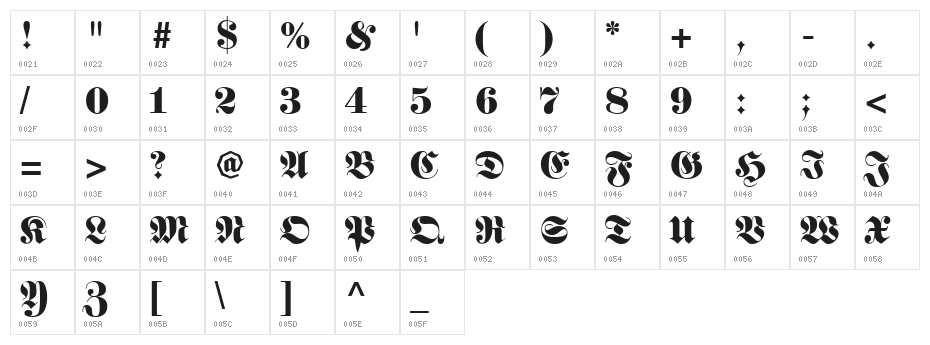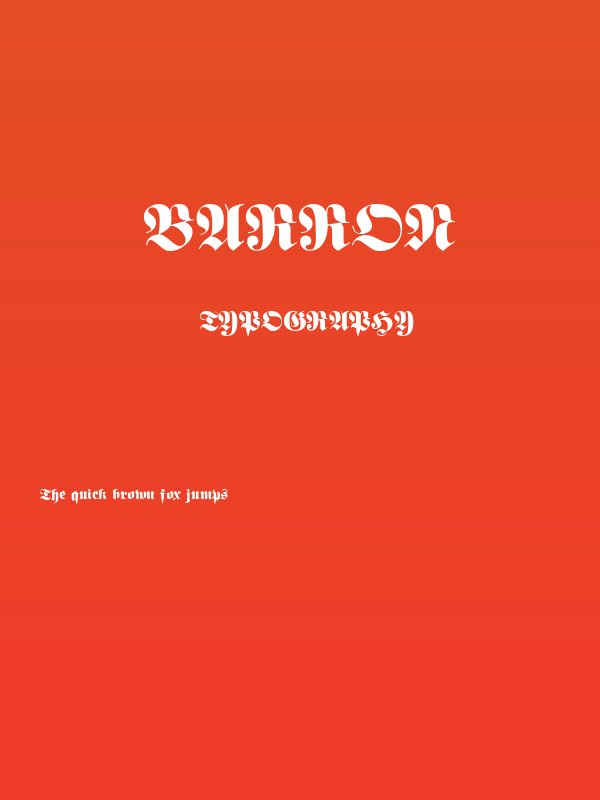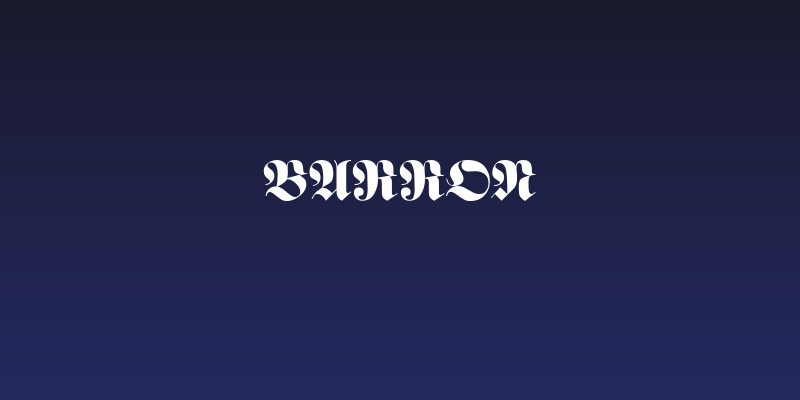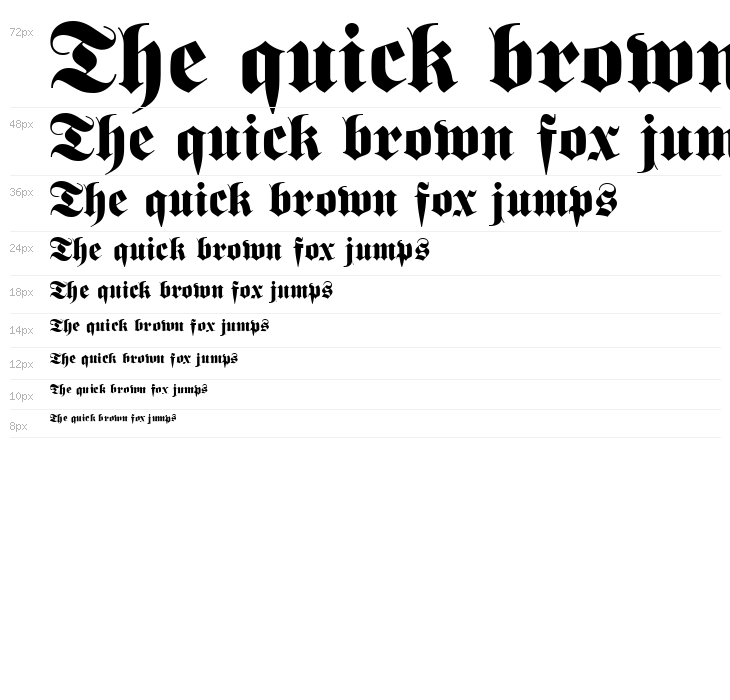
Barron Font
Barron Description
This font exhibits a bold and dramatic style, reminiscent of traditional Blackletter typography. The uppercase letters are ornate, with intricate curves and sharp edges that convey a sense of historical elegance. The lowercase letters maintain a similar aesthetic, with a slightly more compact and rounded form. The numerals are bold and consistent with the overall style, featuring strong vertical lines and subtle curves. Special characters are designed to match the elaborate nature of the letters, making them suitable for decorative purposes. The font's high contrast between thick and thin strokes enhances its visual impact, making it ideal for attention-grabbing designs.
| Proposed Projects | Ideal for use in branding, posters, book covers, and any project requiring a historical or gothic aesthetic. |